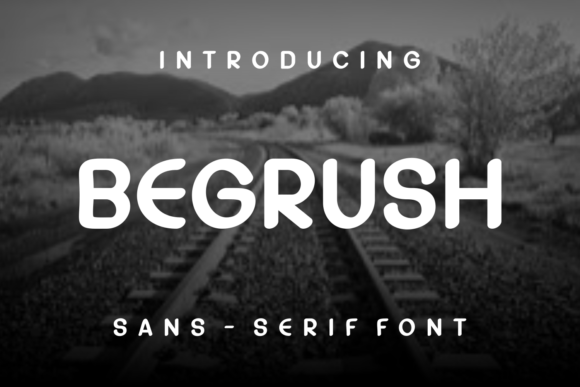
That’s where the Begrush Font comes in – a cool and unique sans serif font that’s sure to capture your heart. With its incredibly distinct and timeless style, this font is perfect for creating spectacular designs that stand out from the crowd. Whether you’re working on a logo, brochure, or website, the Begrush Font is a valuable addition to any designer’s toolkit.
Begrush Font Key Features
- Font Family: Begrush is a sans-serif font family designed for modern and clean typography.
- Character Set: The font family includes a wide range of characters, including Latin, Cyrillic, and Greek alphabets, as well as punctuation and symbols.
- Unique Characteristics: Begrush Font features a unique blend of geometric and organic shapes, resulting in a distinctive and modern aesthetic.
- Size: The font family includes a range of weights, from Thin to Black, with corresponding sizes for optimal legibility.
- Resolution: Begrush Font is optimized for high-resolution displays, making it ideal for use in digital design, including web, mobile, and print applications.
Begrush Font Review
Overall, I think the Begrush font has some great qualities that make it worth considering for certain design projects.
- Unique Design: Begrush has a distinctive, modern look that can help a design stand out from the crowd.
- High-Quality Renditions: The font comes in a range of weights and styles, from light to bold, which makes it versatile and easy to use.
- Good Legibility: The font is clear and easy to read, even at small font sizes.
- Limited Character Set: The Begrush font is not as comprehensive as some other fonts, which can be a problem if you need to use non-standard characters.
- Not Suitable for Body Text: While Begrush is great for headings and titles, it may not be the best choice for large blocks of body text due to its high x-height and relatively small line gap.
- Dependence on Weight: The font’s style and legibility can be heavily influenced by the weight you choose, which can make it tricky to get right.
Overall, the Begrush font is a solid choice for designers who want a modern, unique look for their headings and titles. However, it may not be the best fit for every project, and designers should be aware of its limitations before using it.
Tips for Getting the Most Out of Begrush
To make the most of the Begrush font, use it for:
- Handwritten-style invitations and announcements
- Personalized quotes and motivational messages
Experiment with different font sizes, colors, and styles to create unique and eye-catching designs.
The Begrush font is perfect for:
- Personalized gift tags and cards
- Business branding and marketing materials
Alternatives to Begrush Font for Designers
The Great Vibes Font is a beautiful, elegant script font ideal for creating invitations, wedding designs, and other creative projects. It’s perfect for designers who want to add a touch of sophistication and whimsy to their work. Compared to Begrush Font, Great Vibes Font has a more refined and classic feel, making it suitable for formal events and high-end designs.
Carolyna Pro Font is a modern, sans-serif font designed for digital use. It’s perfect for designers who want a clean and versatile font for their websites, apps, and other digital projects. Compared to Begrush Font, Carolyna Pro Font is more minimalist and versatile, making it suitable for a wide range of design applications.
Pacifico Font is a beautiful, elegant script font inspired by the Pacific coast of Mexico. It’s perfect for designers who want to add a touch of warmth and personality to their work. Compared to Begrush Font, Pacifico Font has a more relaxed and casual feel, making it suitable for creative projects like food blogs, travel websites, and social media designs.